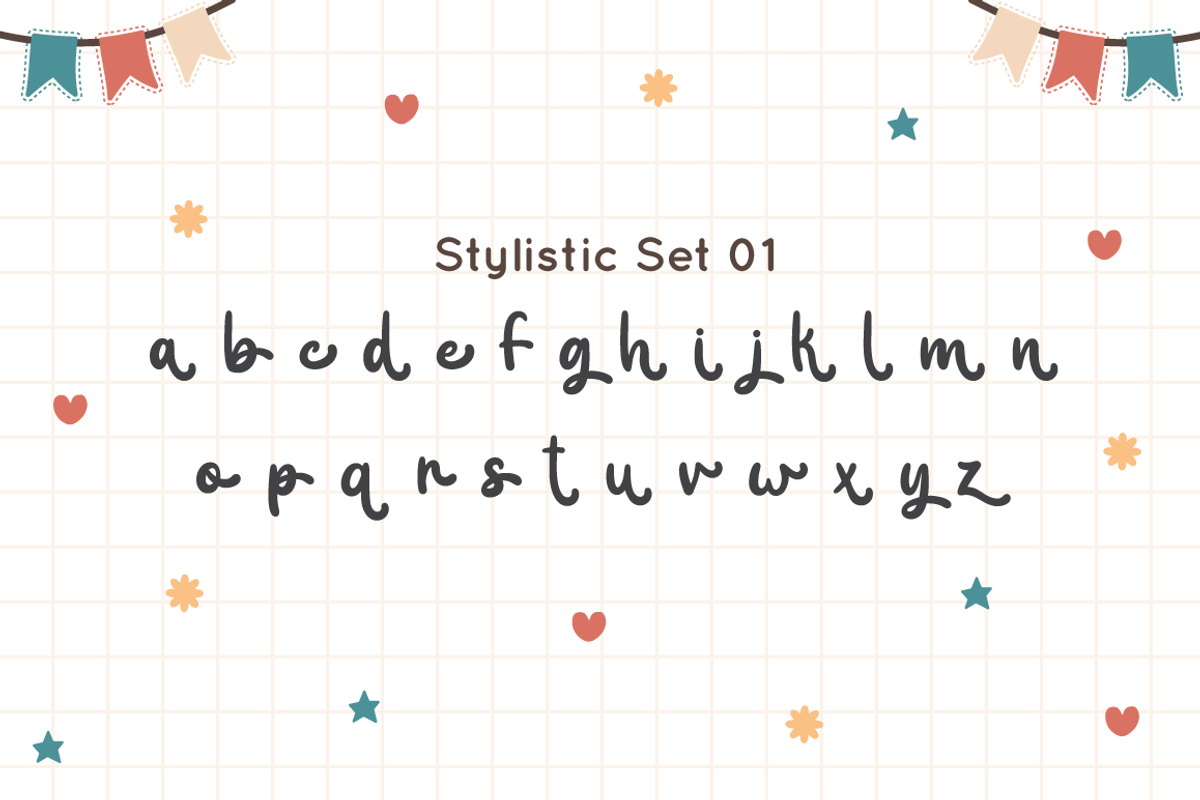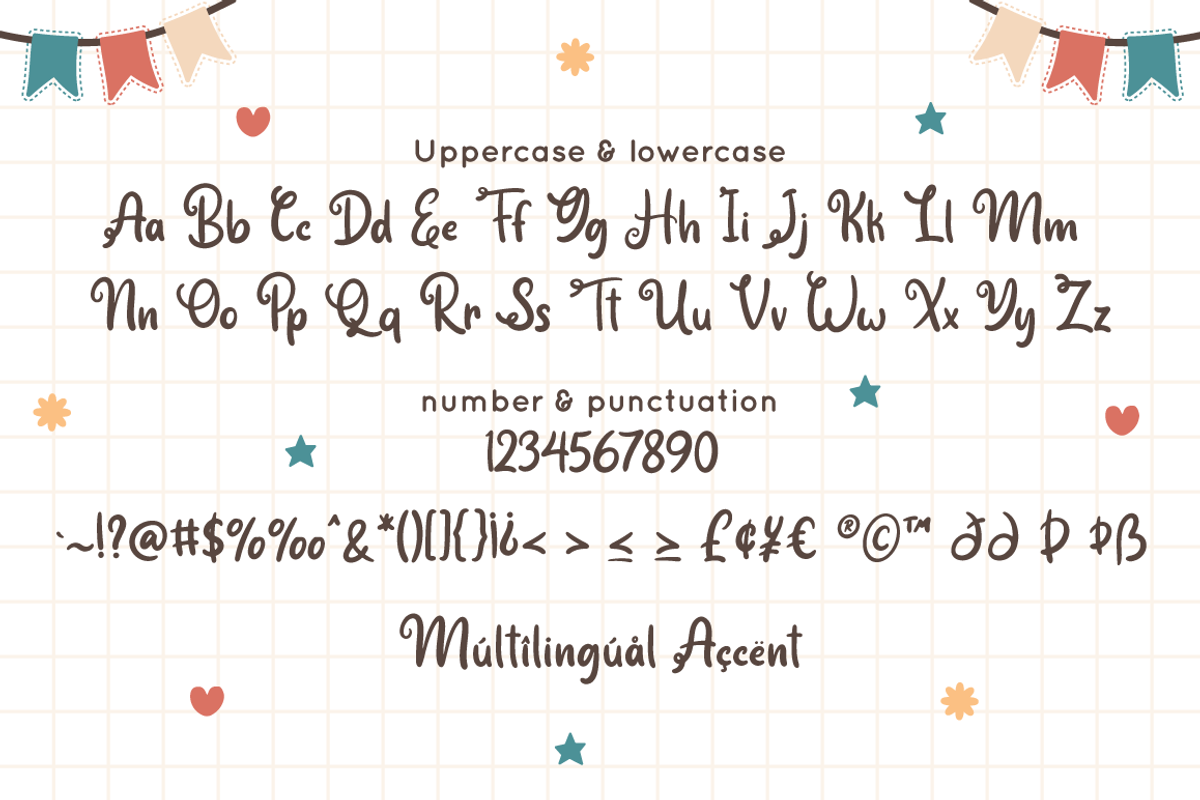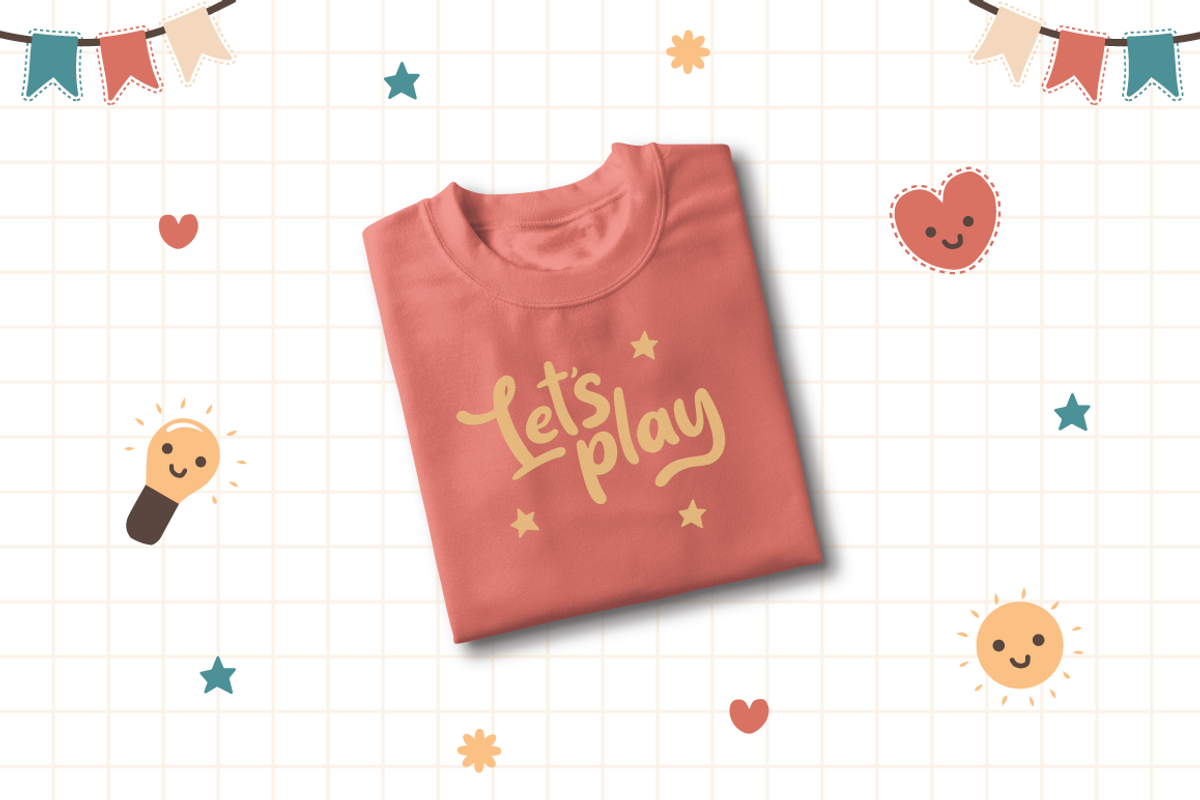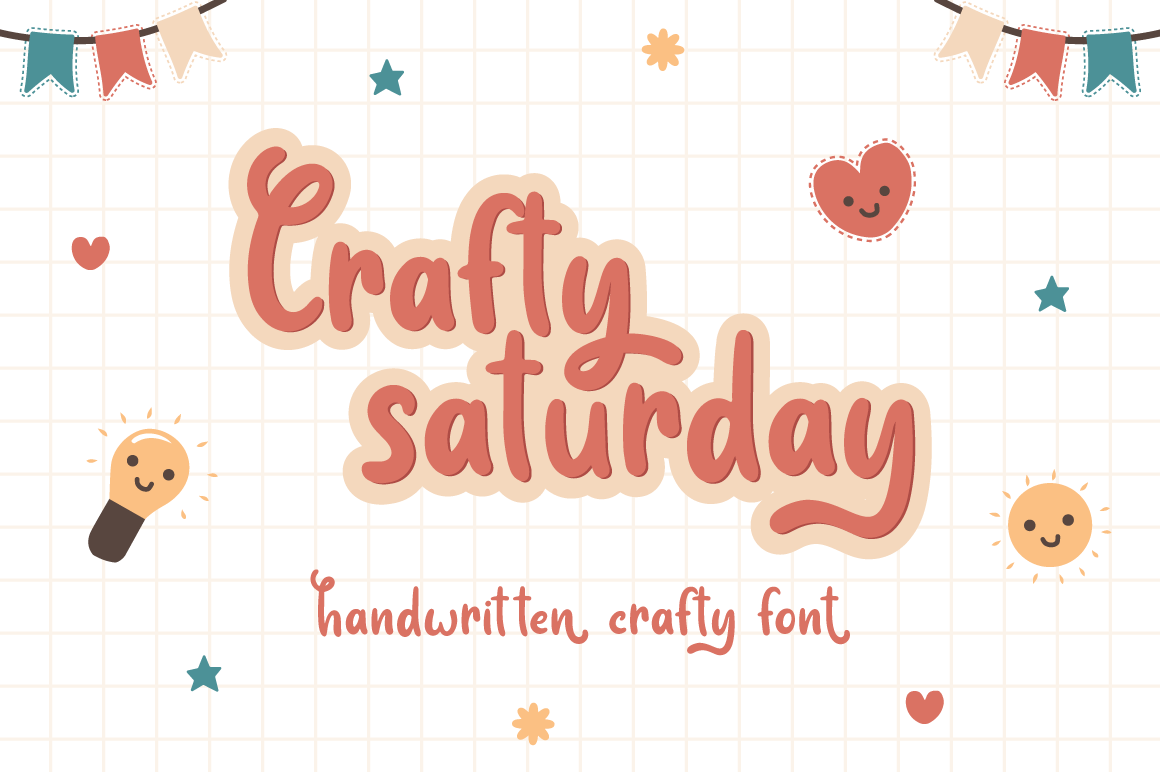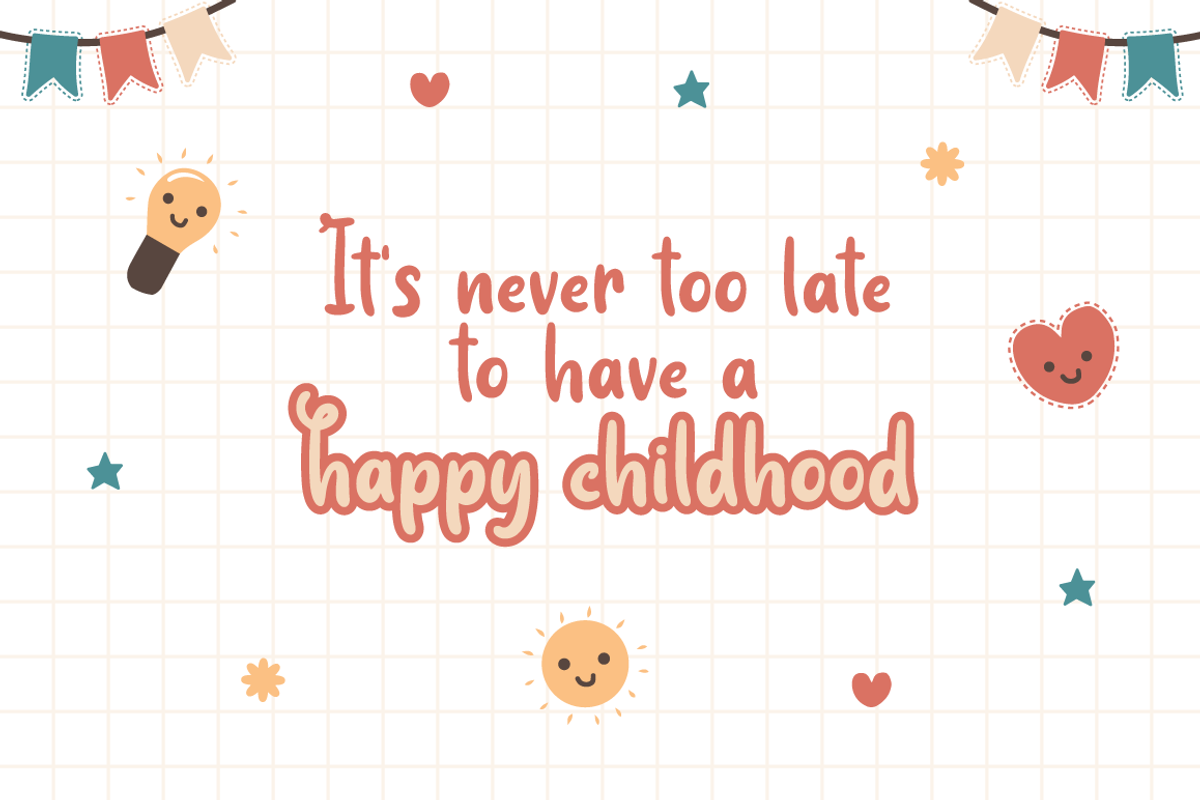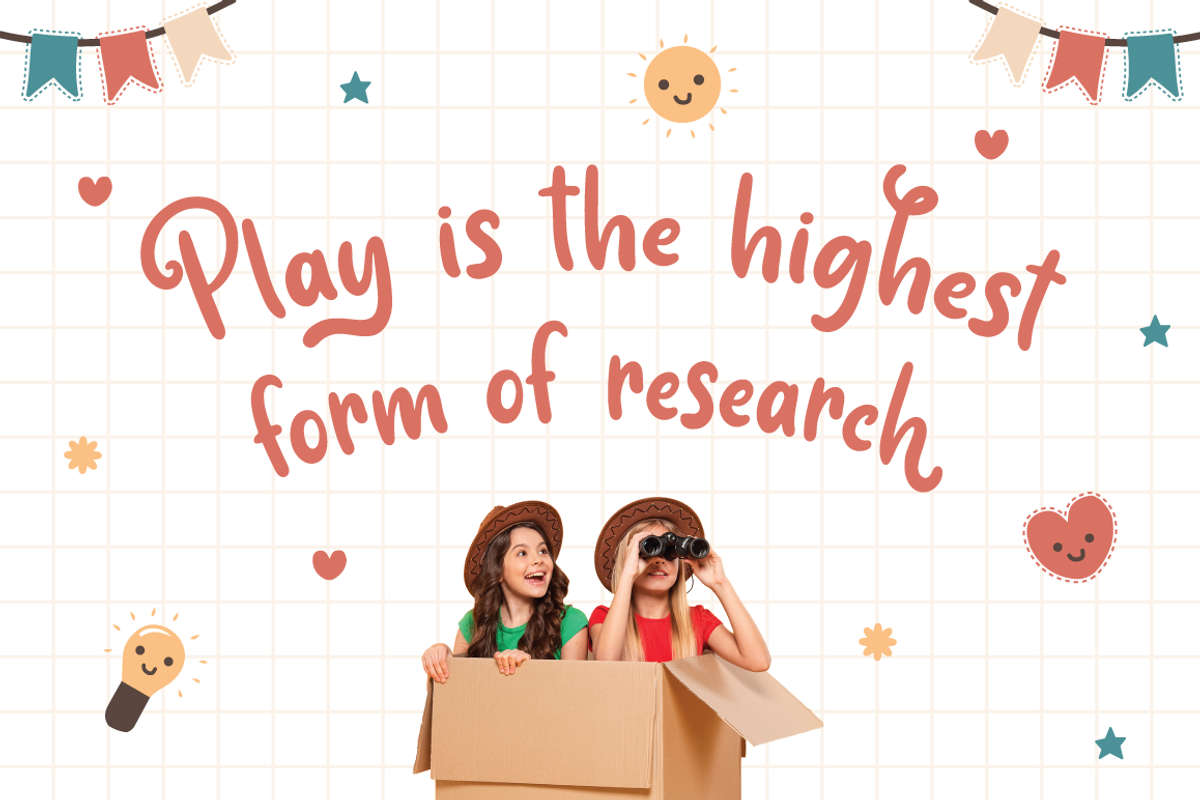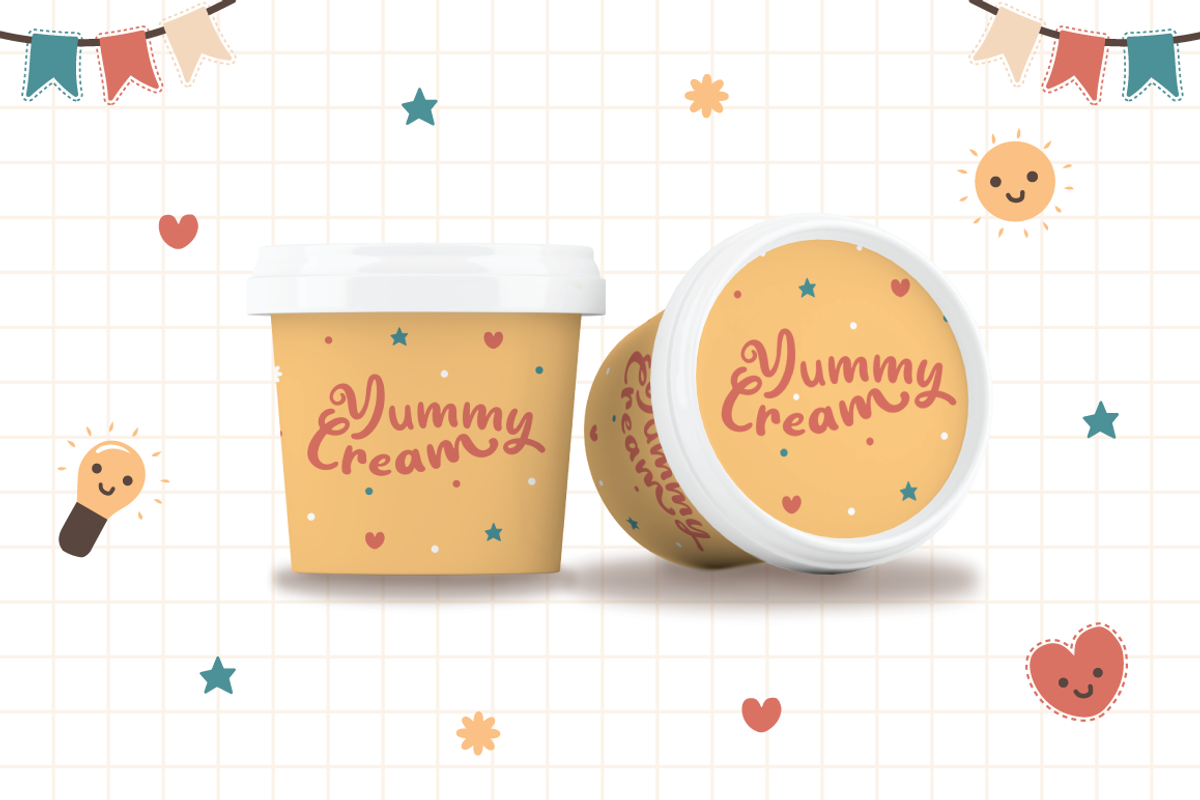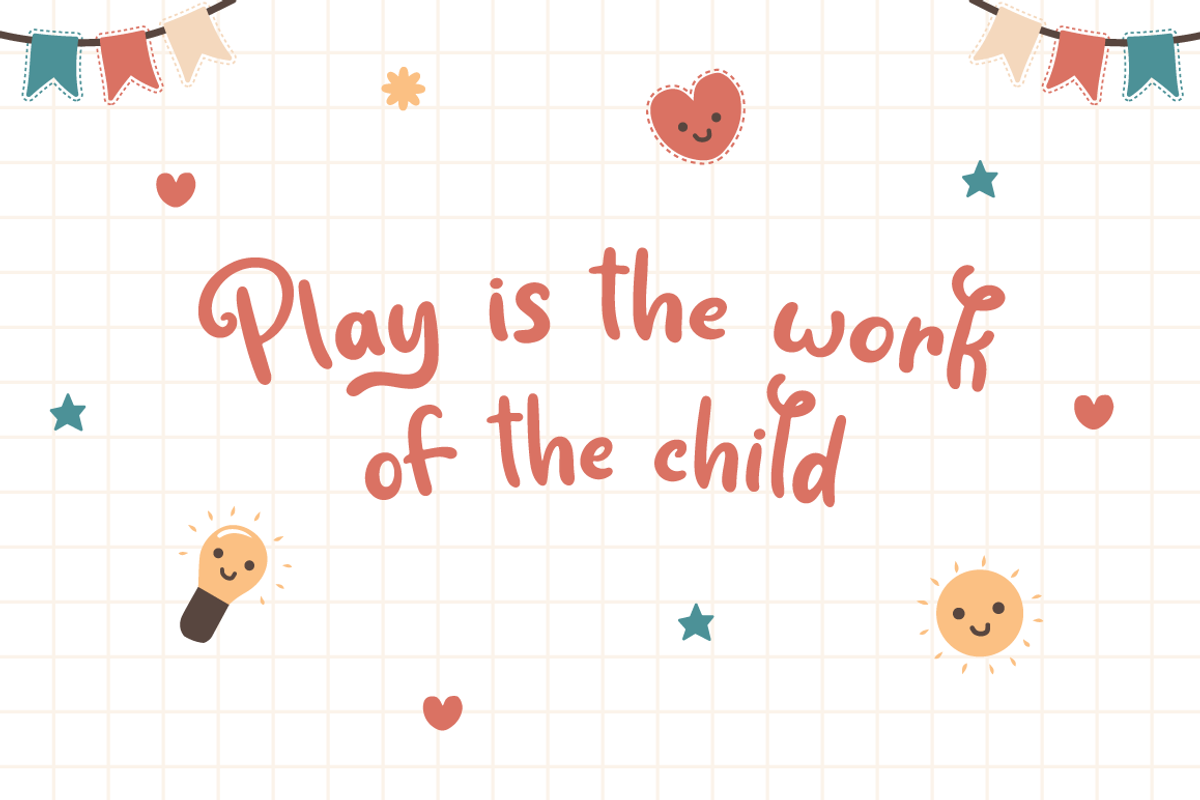
Crafty Saturday - Handwritten Font
Crafty Saturday is a Handwritten crafty font with stylistic set and alternates. Fall in love with its incredibly versatile style and use it to create spectacular designs!
Crafty Saturday is perfect for branding, logo, invitation, quotes, apparel design, product packaging, merchandise, game titles, cute style design, Book/Cover Title and more.
- Ending Swash